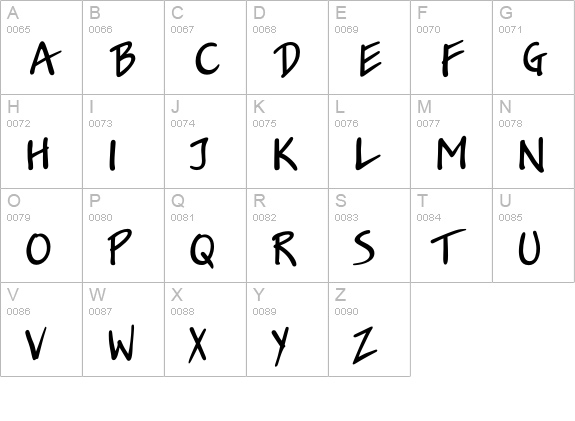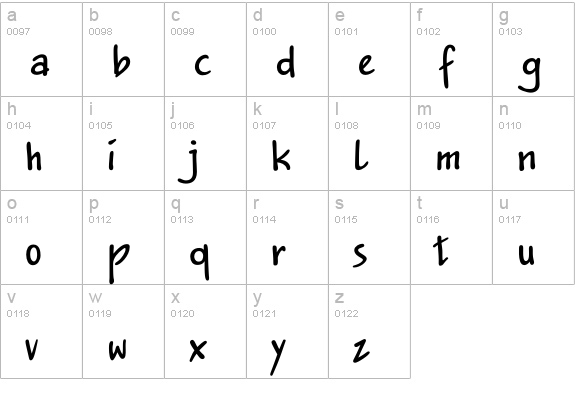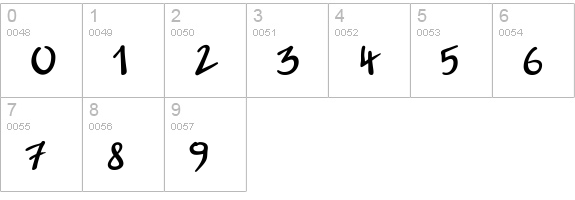
PT Jakob Book Cyrillic is a comfortable, highly readable variant in the PT typeface family \xE2\x80\x94 well suited to long-form body text, articles, and editorial content.
The PT Jakob Book Cyrillic font is a stunning typeface that exudes elegance and sophistication. With its clean lines and classic design, this font is perfect for a variety of design projects, including branding, advertising, and editorial layouts. The PT Jakob Book Cyrillic font features a beautiful collection of Cyrillic characters, making it ideal for projects that require multilingual support. Whether you're designing a website, creating a brochure, or crafting a logo, this font will add a touch of refinement to your work. One of the best things about the PT Jakob Book Cyrillic font is that it is freely available to download at FontsMarket.com. This means that you can easily access and use this font without any restrictions or limitations. Whether you're a professional designer or a hobbyist, having access to high-quality fonts for free is a game-changer. The PT Jakob Book Cyrillic font is meticulously designed, with each letterform crafted with precision and care. The result is a font that is not only visually appealing but also highly legible. No matter the size or context, this font will ensure that your text is easy to read and understand. So why wait? Download the PT Jakob Book Cyrillic font from FontsMarket.com today and elevate your design projects to new heights. With its timeless beauty and versatility, this font will become an essential tool in your creative arsenal. Don't miss out on this incredible opportunity to enhance your designs with a high-quality, freely available font.